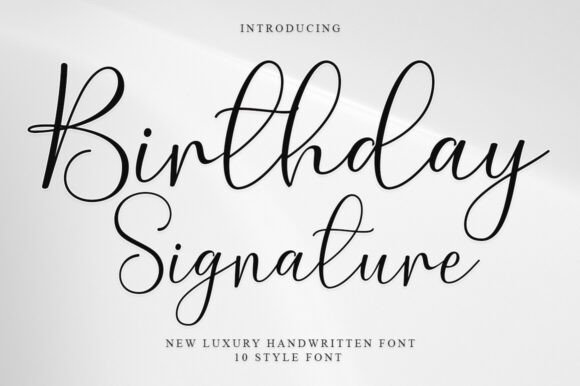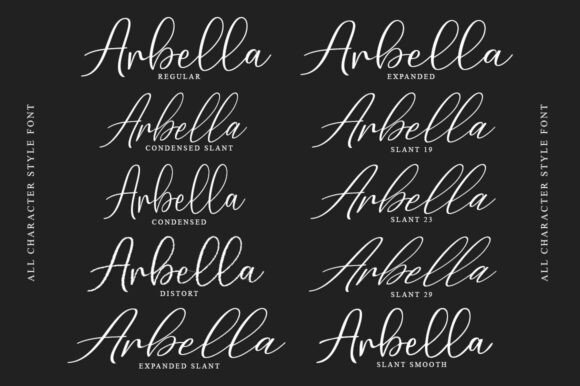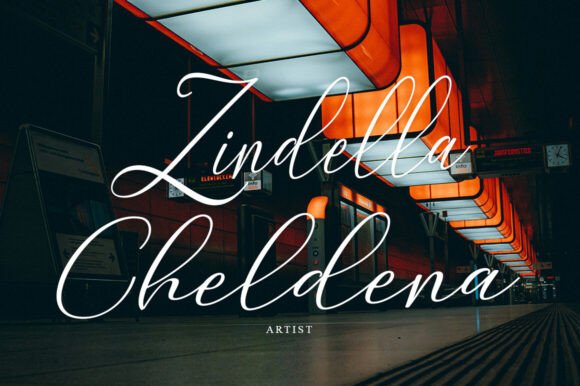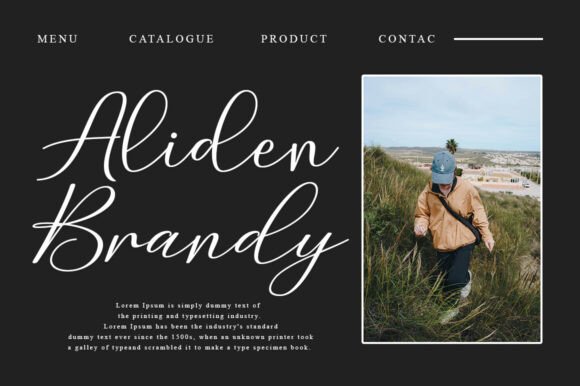
Birthday Signature Font
About the Birthday Signature Font
Add a touch of class to your work with the Birthday Signature Font, a truly exceptional typeface. Showcase your creativity and style with the elegant Birthday Signature Font! With perfectly balanced typography and ten distinctive font styles, it offers versatility and charm. The remarkable finesse of this modern calligraphy font lies in its delicate rhythm, which adds an artistic flair to your work. It’s perfect for sophisticated branding initiatives, stylish invitations, engaging web graphics, heartwarming cards, and more!
Birthday Signature Font Usage Examples
Birthday Signature Font Example